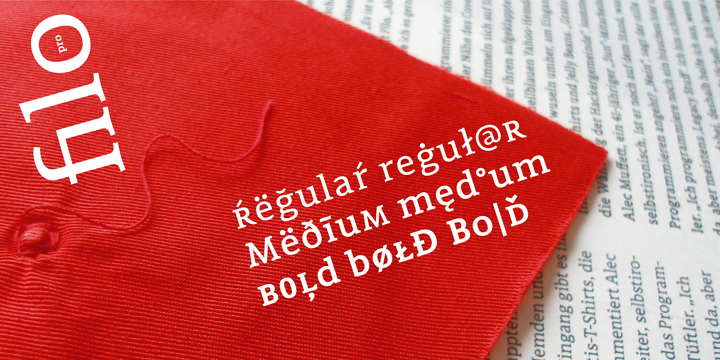
Filo Pro Font is perfect for professional business documents, corporate presentations, technical manuals, academic publications, financial reports, legal documentation, medical journals, scientific research papers, government communications, and multilingual international projects.
What makes Filo Pro Font exciting is its exceptional versatility and professional-grade performance that delivers consistent excellence across every application and language system. This comprehensive typeface combines Swiss design precision with global functionality, featuring advanced OpenType capabilities and extensive character coverage that ensures flawless typography in any professional context. The font's professional character establishes immediate credibility and trustworthiness in corporate communications.
Filo Pro Font family includes complete weight range from Thin to Black with matching italics, featuring comprehensive character sets supporting over 200 languages. The typeface showcases advanced typographic features including contextual alternates, ligatures, and professional-grade spacing that ensures optimal readability in both print and digital environments.
Business professionals consistently choose Filo Pro Font Free Download for projects demanding international compatibility and professional reliability. This outstanding typeface represents the evolution of modern business typography, combining traditional readability with cutting-edge multilingual support to serve global corporations. The meticulously engineered letterforms ensure consistent brand communication across all markets and media, making it essential for multinational companies, professional services firms, and any organization requiring dependable typography that maintains professional standards while supporting diverse linguistic requirements in today's interconnected business environment.